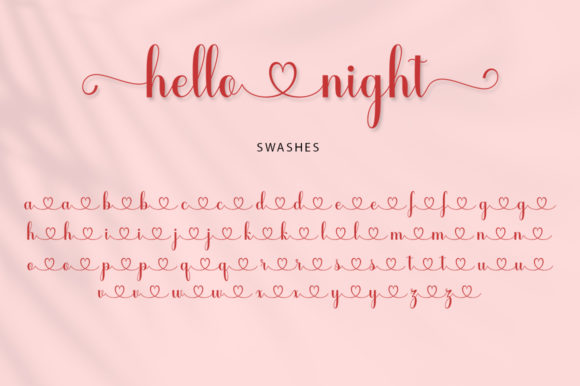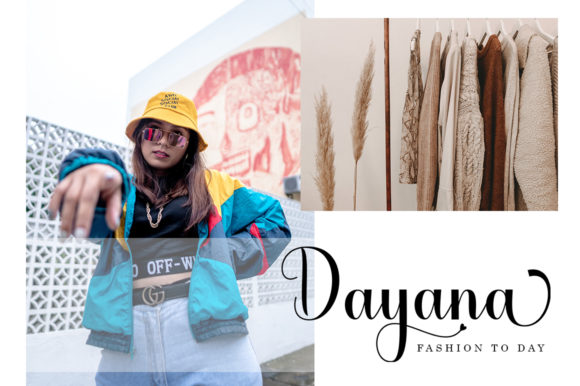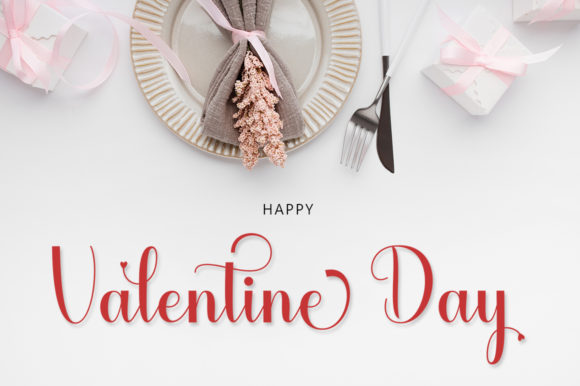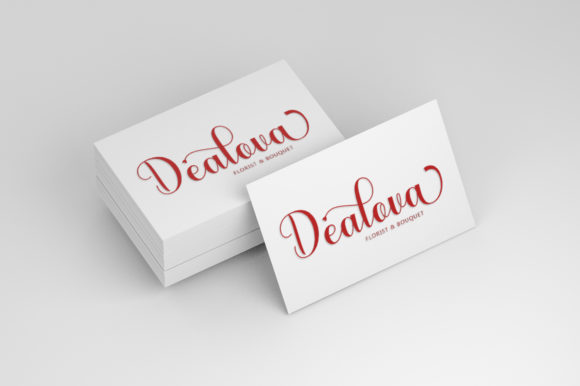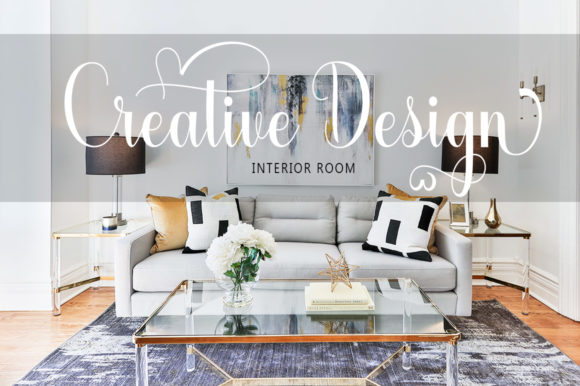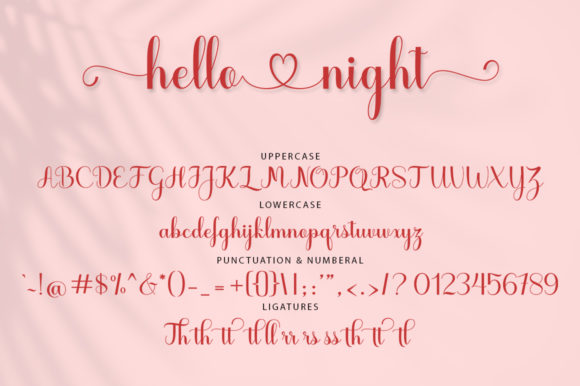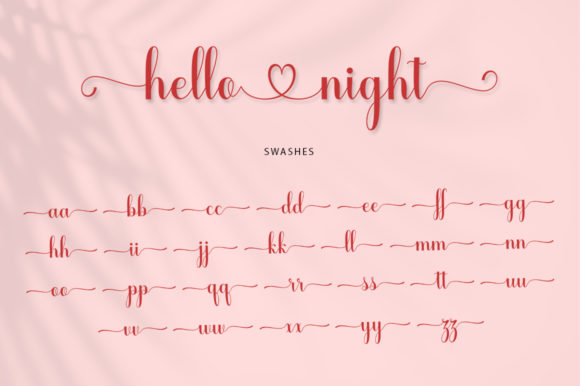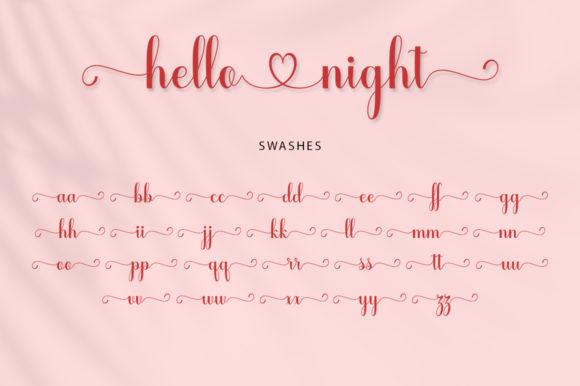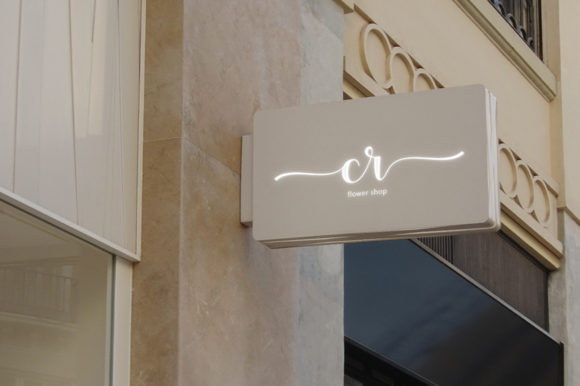
Hello Night Font
About Hello Night Font
Hello Night is a ravishing and dainty handwritten font that exudes elegance and charm. Its delicate swashes and graceful curves make it a perfect choice for a wide range of creative projects. This font brings a genuine and authentic touch to any design, adding a sense of refinement and sophistication.
The daintiness of Hello Night makes it ideal for various crafty ideas, from personalized letterheads and titles to beautifully designed stationery. Its elegant and graceful appearance lends a touch of class to any project, making it suitable for wedding invitations, thank-you cards, and other formal occasions.
With Hello Night, you can create stunning designs that leave a lasting impression. The font’s genuine and sophisticated look appeals to a wide audience and adds a sense of artistry to your creations. Whether you’re designing wedding materials, personalized gifts, or elegant logos, Hello Night brings a touch of magic to your work.
The swashes in Hello Night allow for creative variations and flourishes, giving you the flexibility to customize your designs and make them truly unique. The font’s versatility makes it suitable for various applications, from digital designs to printed materials, ensuring that your projects stand out with their ravishing appeal.
Incorporate Hello Night into your creative endeavors and witness how its delicate and genuine appearance elevates your designs. Whether you’re working on branding materials, crafting personalized stationery, or adding a touch of sophistication to your social media graphics, this font will be a valuable asset in your typographic toolkit.
Overall, Hello Night is a ravishing and dainty handwritten font that brings elegance and sophistication to your designs. With its sweet and delicate swashes, it appeals to a broad range of crafty ideas and adds an authentic touch to your projects. Embrace the charm and grace of Hello Night to create stunning and memorable designs that captivate your audience.